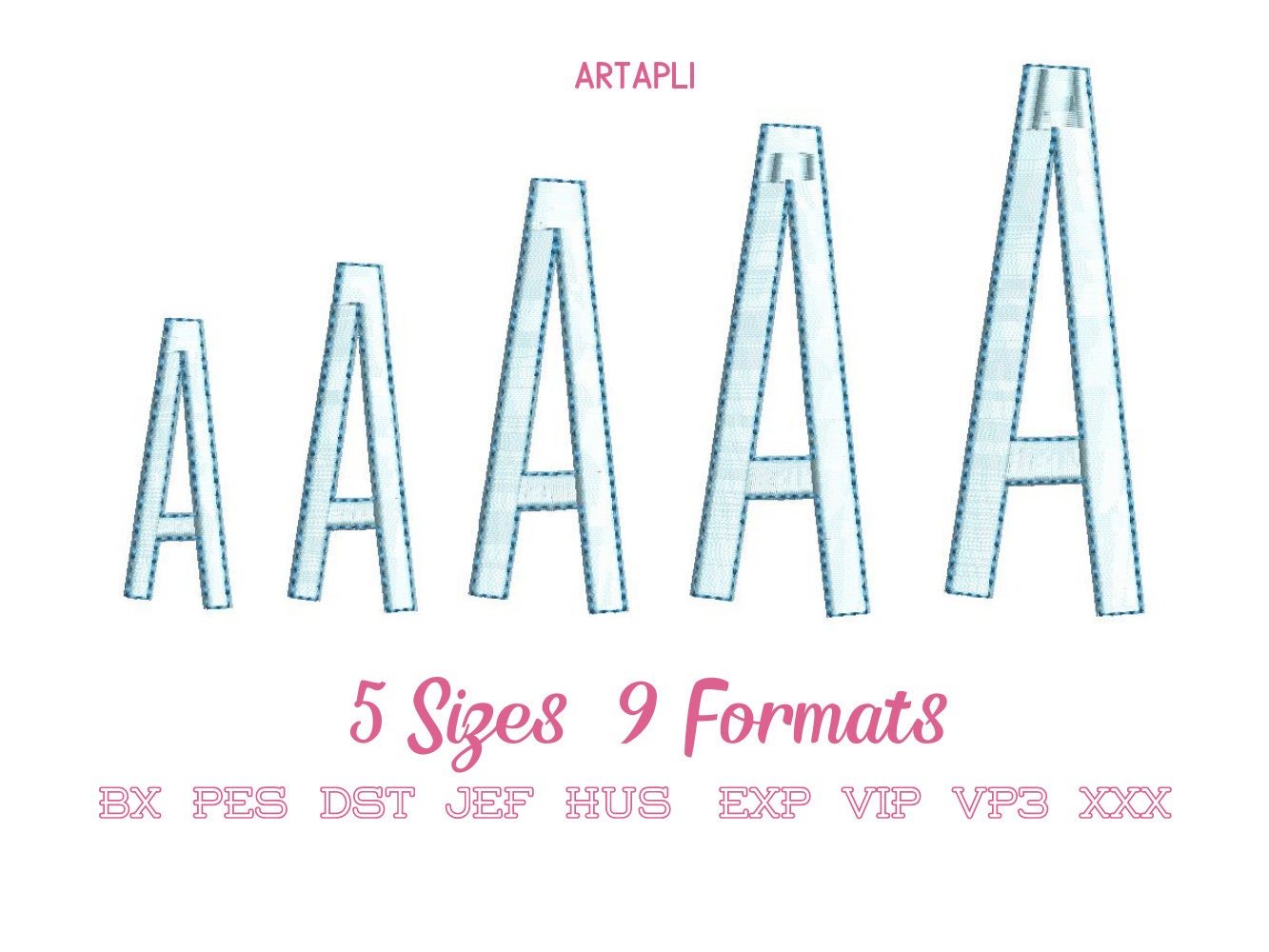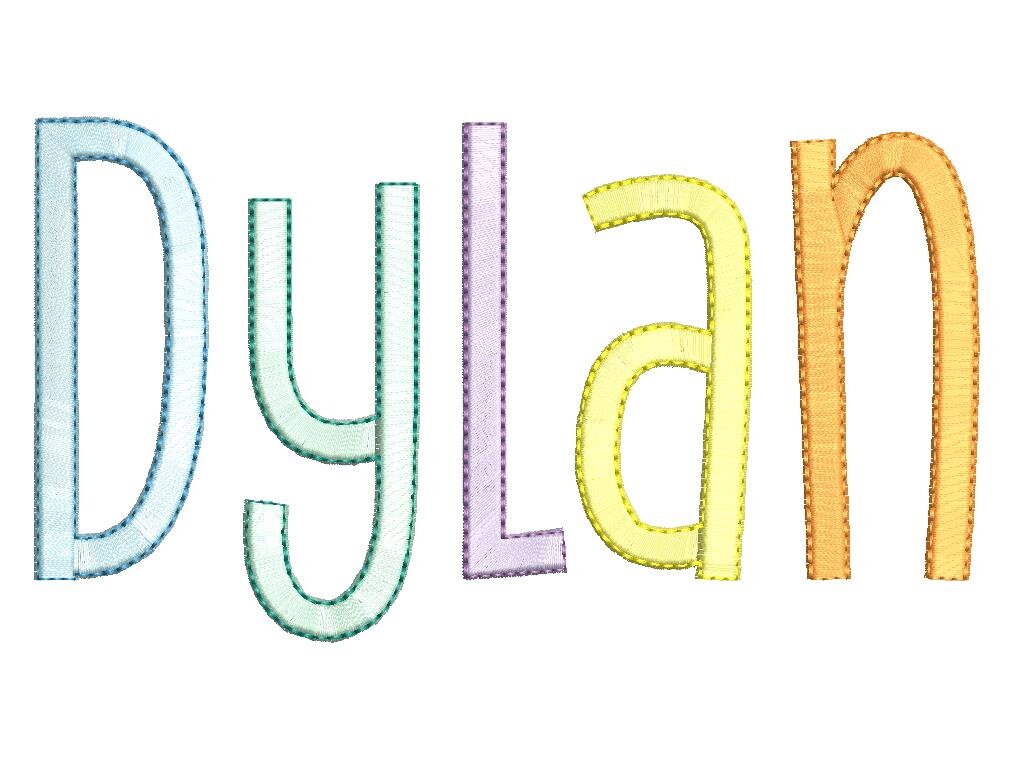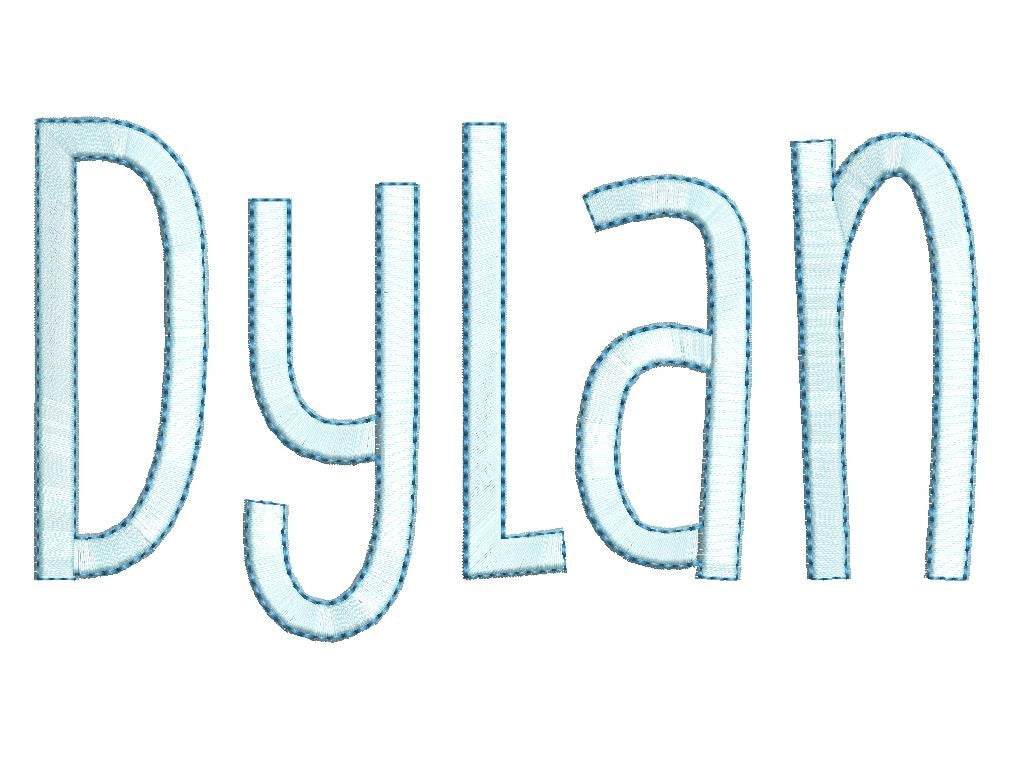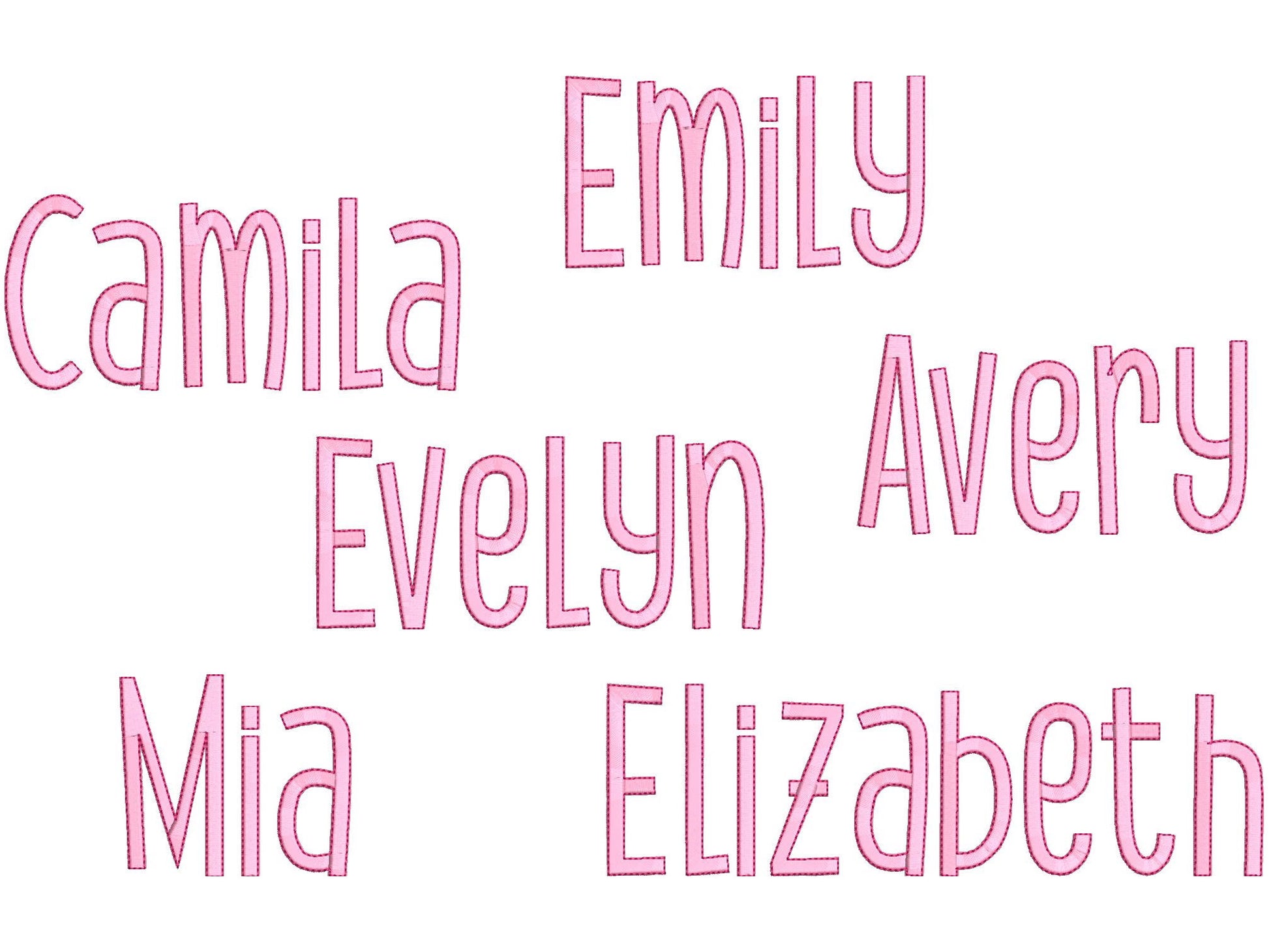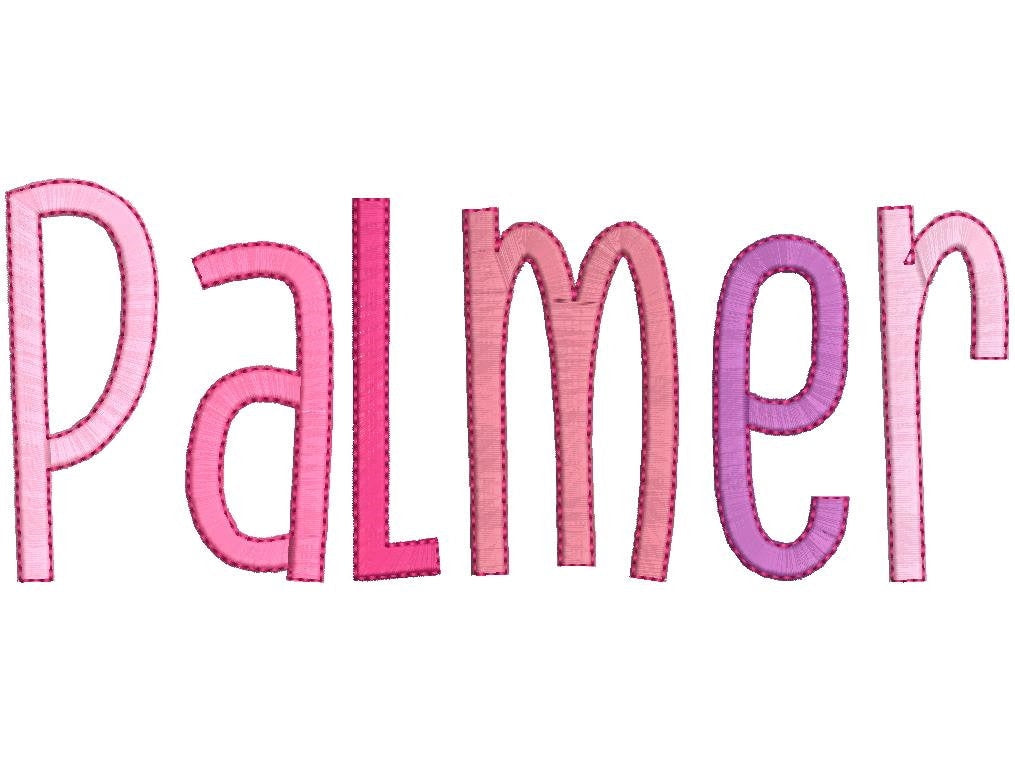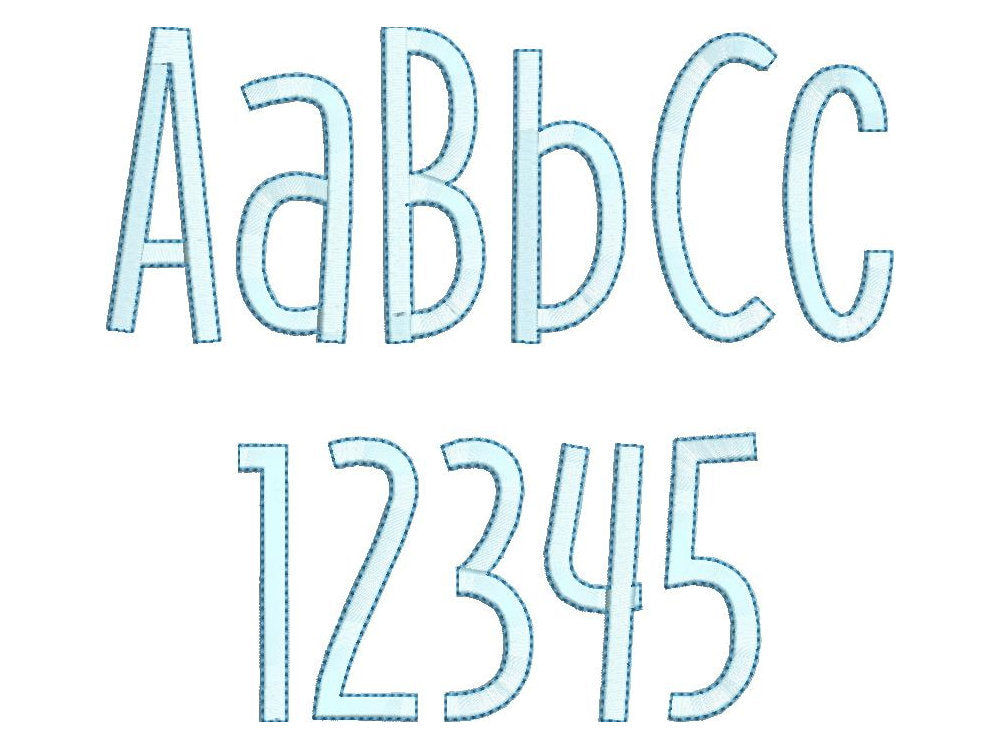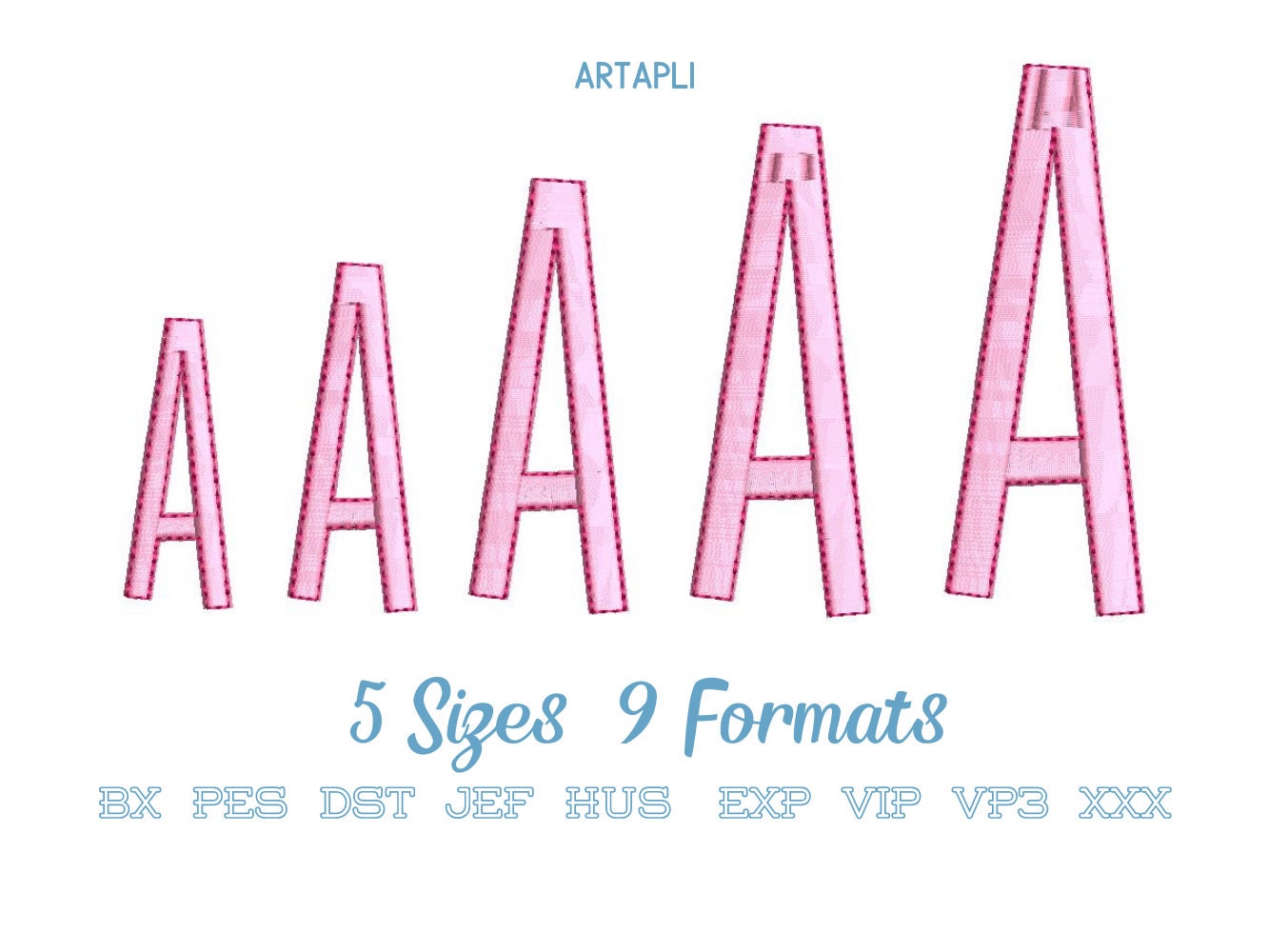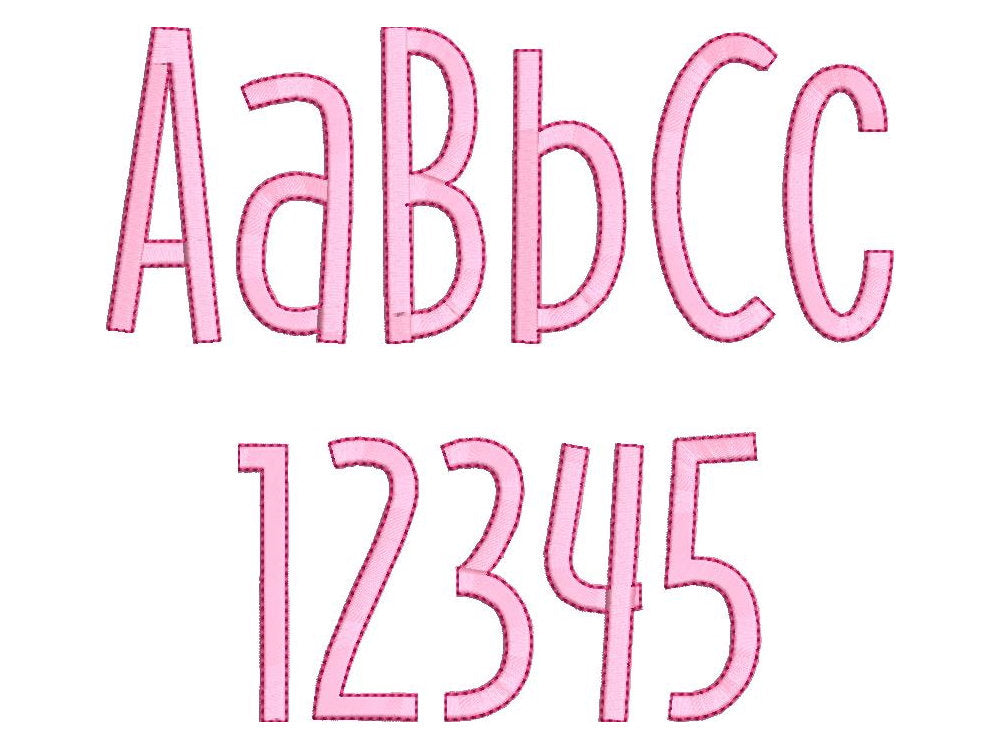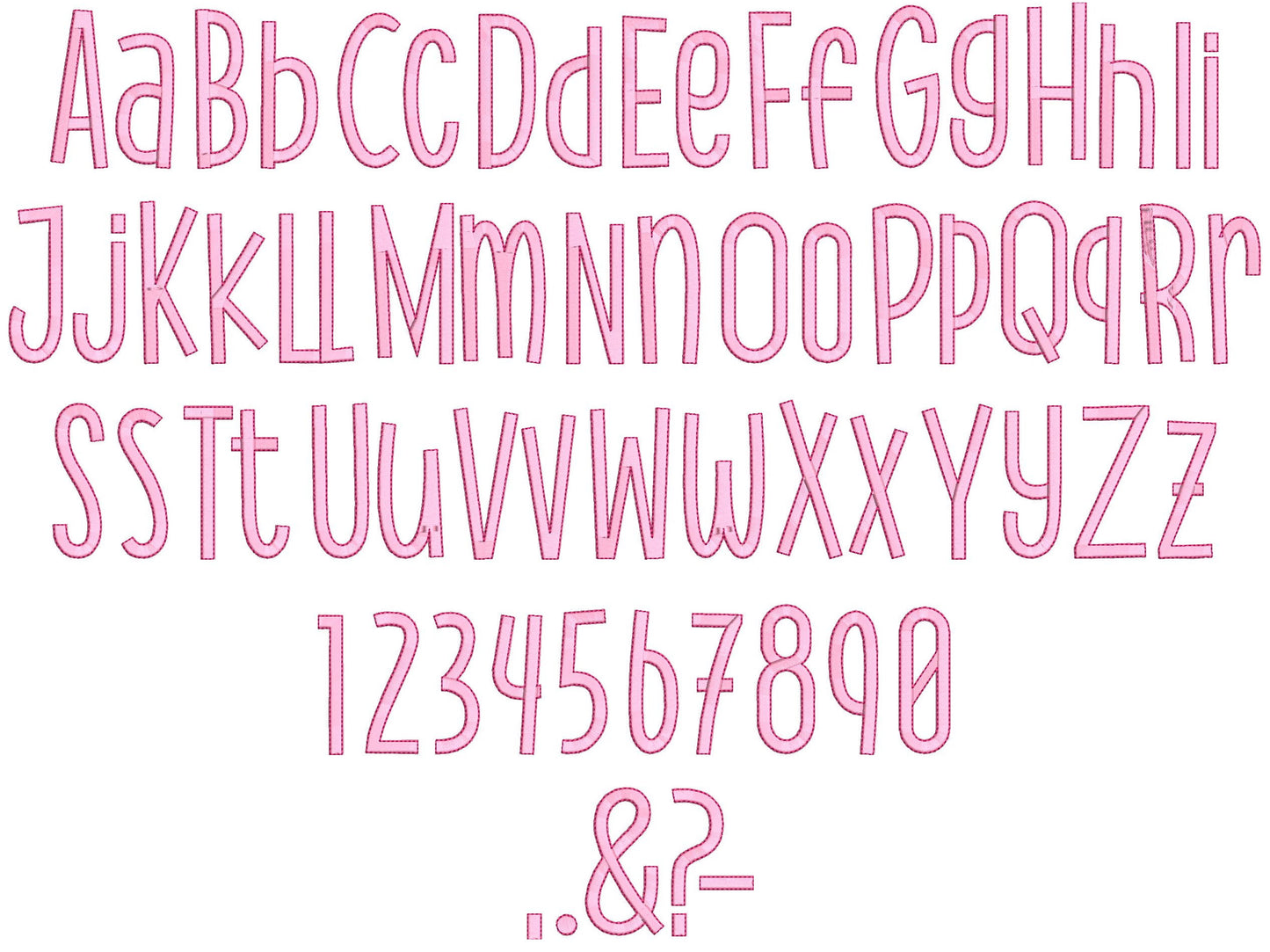
Stitched out wonderfully without any issues!
Such a cute font!! I like that you can have an outline or not outline the letters.
This font stitched out so pretty!!
This font is so cute!
Love this font! It stitches out great!! I plan to use it on a lot of future projects!
great font, have used for sweatshirt
Stitched out so well for kids outfits!
Looked great and stitched well
WE LOVE THIS FONT. WILL GET ALOT OF USE OUT OF IT.
Highly recommend. Stitches out beautifully.
bellissimo, anche se forse avrei preferito avere qualche dimensione più piccola tra i file.
Stunning workmanship as always it stitches like a dream
I LOVE this font! It came out so crisp on the mini backpacks I made for my girls. I didn’t want the black outline so I just used the same thread color for each letter.
Great design. Stitched out great.
Love it! Stitched out perfectly!
Perfect font, nice addition to my collection!!
This font stitches out beautifully.
I love this font so much! It stitched beautifully. Thank you!
Love this font !! Stitches out perfectly !!!! Thank You
Stitching is very nice. I wish I had a bigger hoop to do the larger sizes!
Used this cute font for a small child sweatshirt and am using again this week
SUPER cute font, I love the outline stitch. It stitches really well and looks amazing
Great font! Stitches out well!
Easy to download & stitch! Super cute:)
My favorite font for kids sweatshirts absolutely love it stitches out perfectly
Love this font! Stitched out beautifully!
Stitched out beautifully, love all the size options.
Easily one of my favorite fonts💖
Loved this font stitched out good
easy stitch all came out flawlessly
Stitches out perfectly!
Stitched great!
Stitched out beautifully. The large size was perfect for a nap mat.
Absolutely love this font and it stitched out perfect as always!
Stitched out perfectly. Exactly what I was looking for.
Very appealing style for both genders of baby and young child. Stitched out very nicely.
Love this font! Stitches out beautifully!